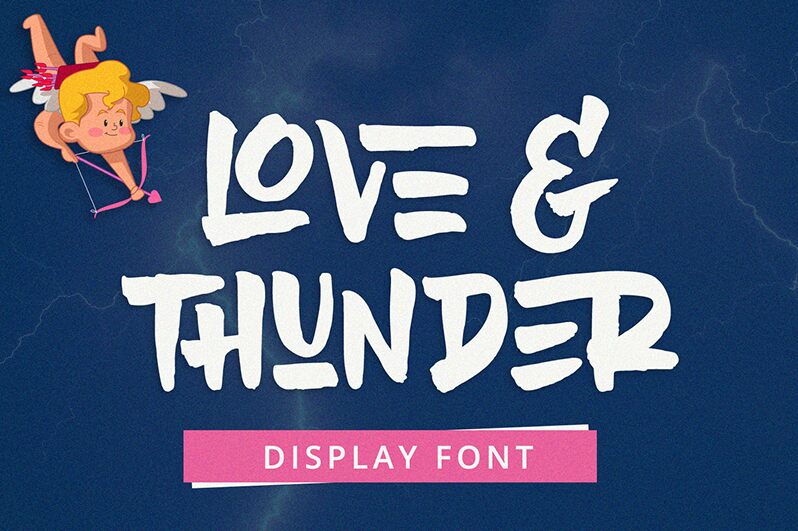
Love & Thunder
Love & Thunder is a bold brush font that packs a punch. Designed by Alpaprana Studio, this typeface is perfect for projects that need to make a statement. Whether you're designing a logo, creating social media graphics, or working on a poster, Love & Thunder will help your message stand out from the crowd. Its thick strokes and unique style give it an edgy feel that's perfect for fashion brands, music events, and any project that needs a touch of personality. With Love & Thunder in your toolkit, you'll never have to settle for boring typography again.